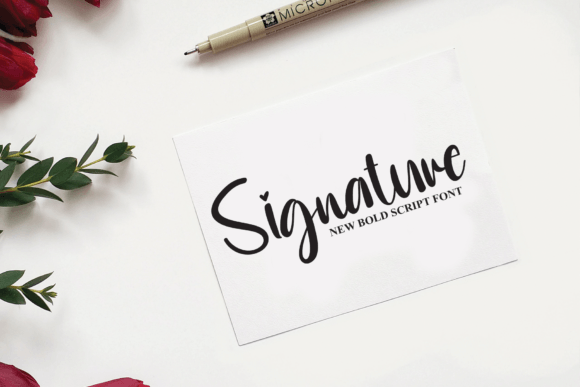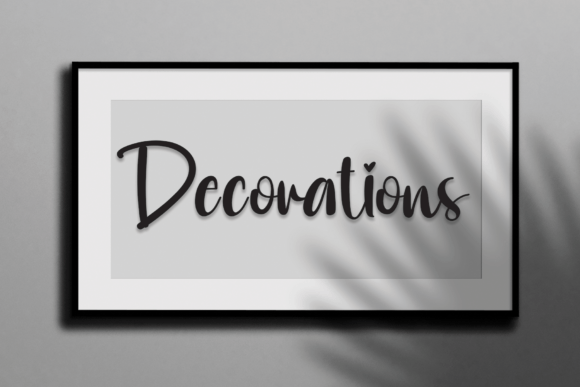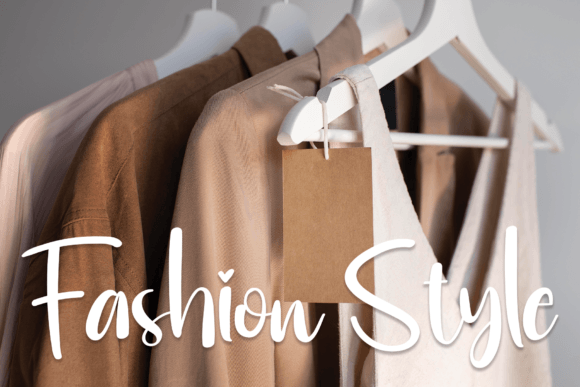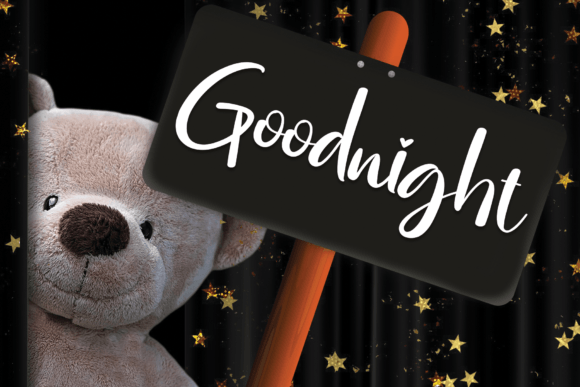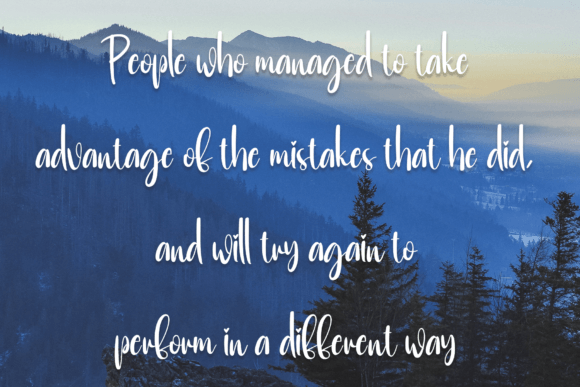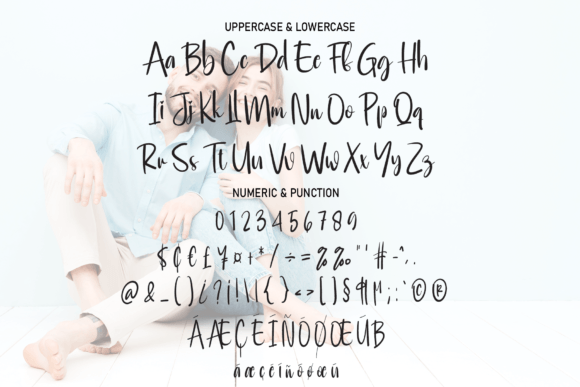
Introduction to Housewife Font
Housewife’s latest style letters are perfect for wall displays, wedding invitations, social media post logos, advertisements, product packaging, product designs, labels, photography, watermarks, invitations, stationery, and any project that requires a handwritten taste.
Key Features of Housewife Font
Why Choose Housewife Font?
Housewife Font offers exceptional quality and versatility, making it a valuable addition to your design toolkit. Whether you’re creating for personal projects or commercial use, Housewife Font delivers professional results.